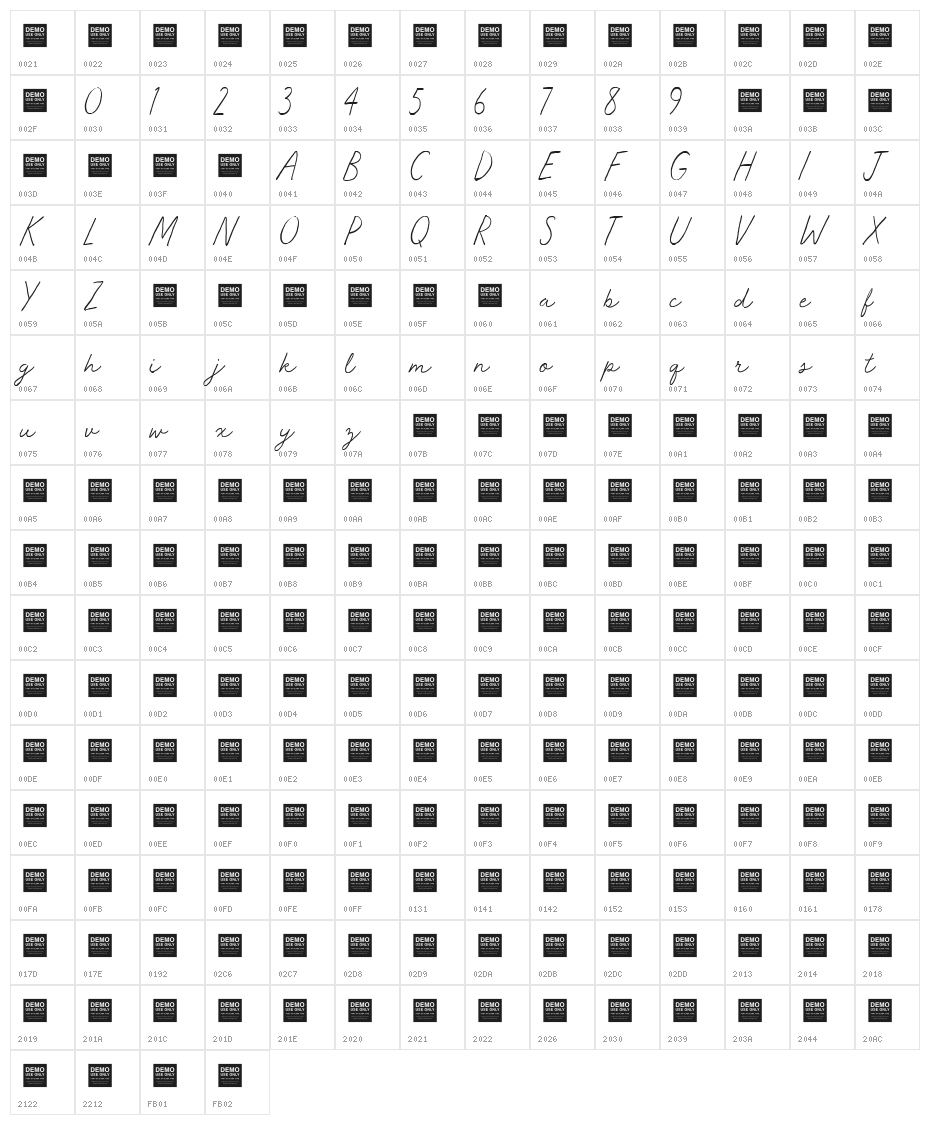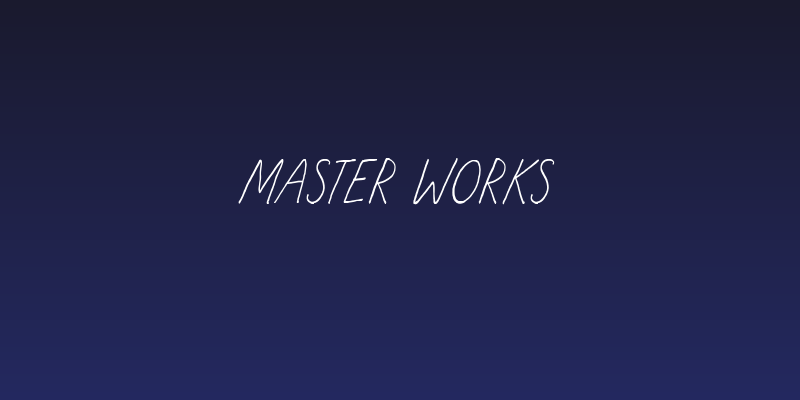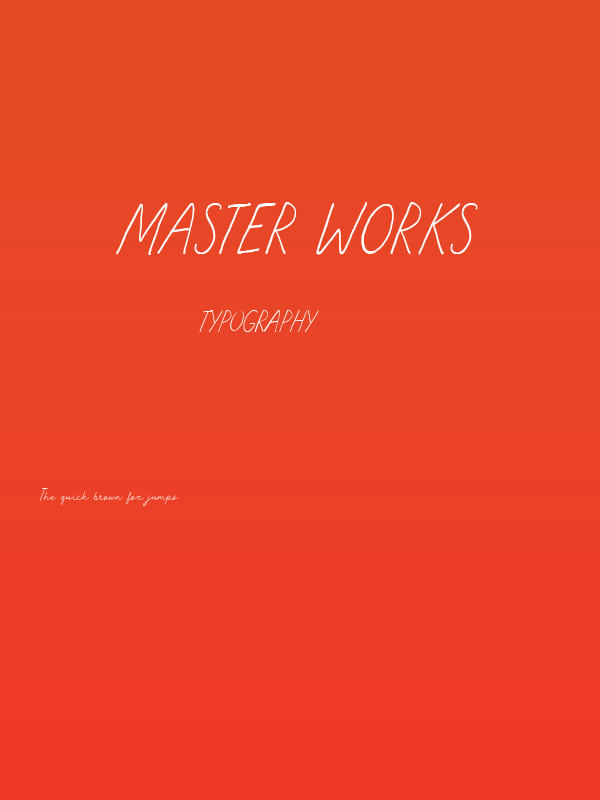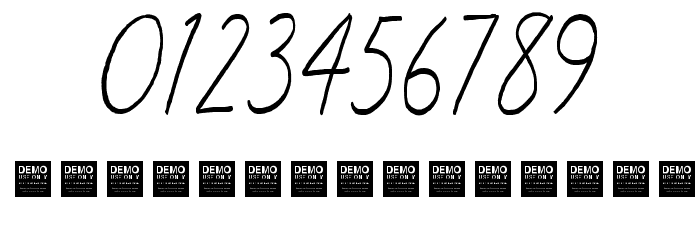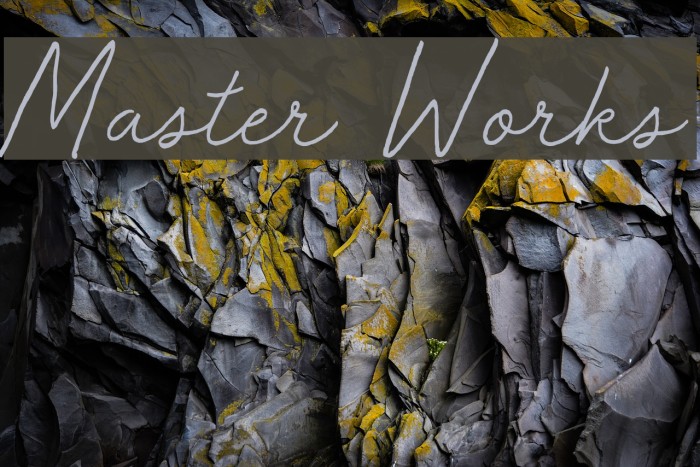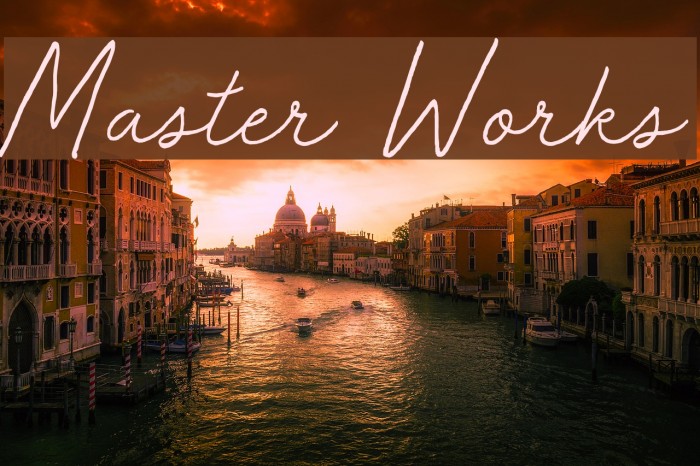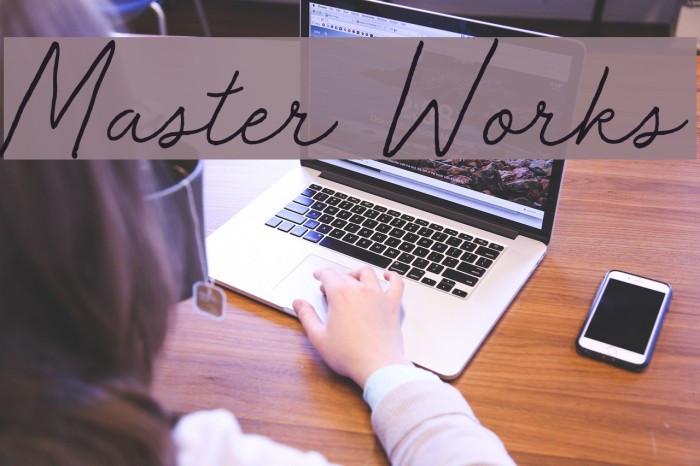
Master Works Font
Master Works Description
This font features a handwritten, cursive style with a smooth and flowing appearance. The letters are connected, giving it a continuous and elegant look. The uppercase letters are slightly taller and more elongated, while the lowercase letters maintain a consistent baseline with gentle curves. The numerals are clear and maintain the same fluidity as the letters. This font exudes a personal and informal charm, making it suitable for projects that require a touch of personality and warmth. The overall design is clean, with a slight slant to the right, enhancing its handwritten feel.
| Overall Style | Casual, Elegant |
| Use Case | Logos, Invitations, Personal notes |
| Proposed Projects | Ideal for personal invitations, greeting cards, and branding that requires a personal touch. |